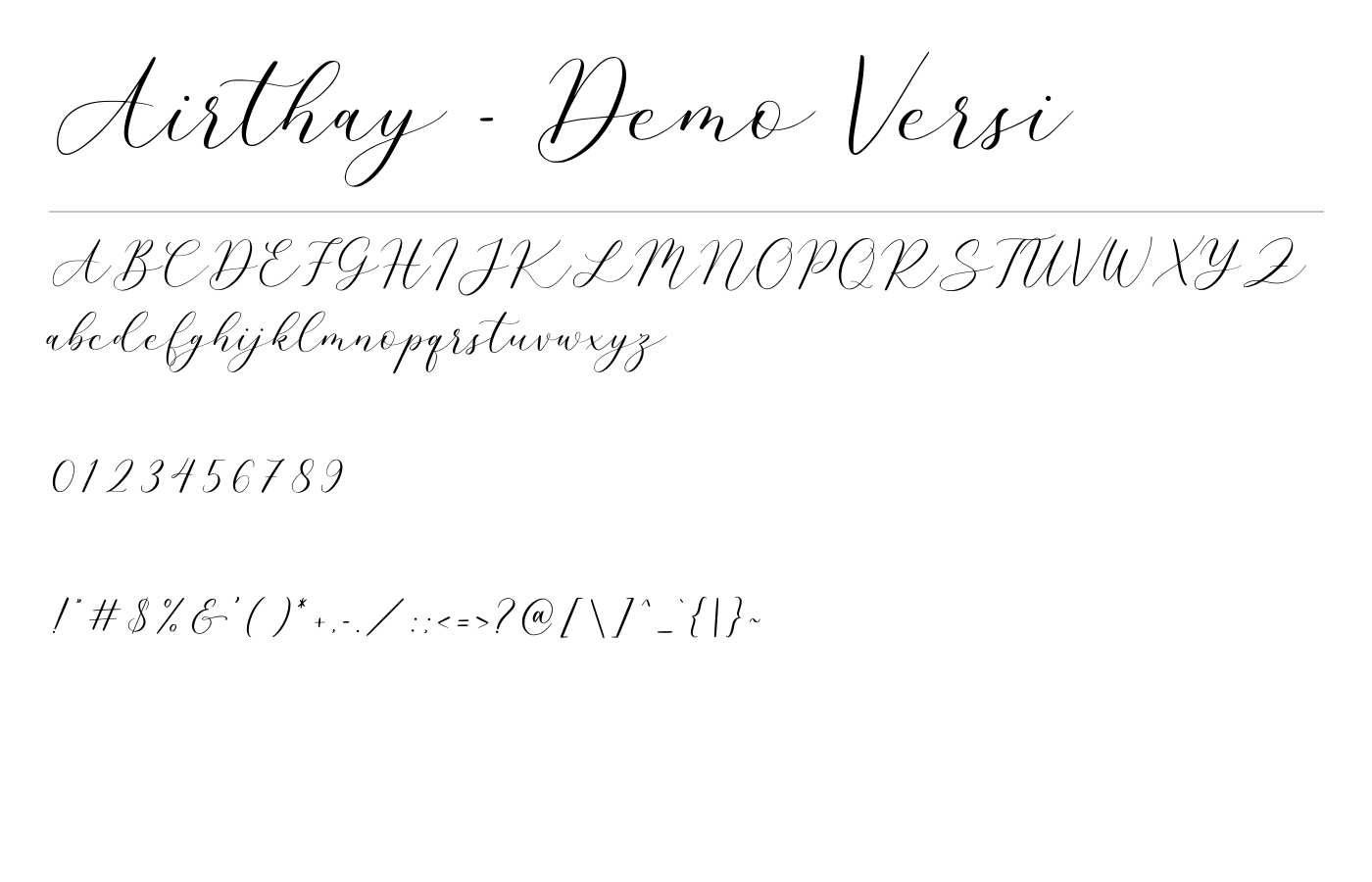
Airthay - Demo Versi is an elegant, thin script font featuring delicate, flowing strokes with high contrast and a graceful, handwritten feel. Its refined letterforms and charming swashes make it perfect for sophisticated branding, invitations, and stylish headlines where a touch of classic beauty and romance is desired. This font works especially well in luxury or artistic contexts that need a soft, personal aesthetic.
Airthay - Demo Versi Font
About Airthay - Demo Versi Font
| Font family | Airthay - Demo Versi Font |
| Designer | Sigit Dwipa Raharjo |